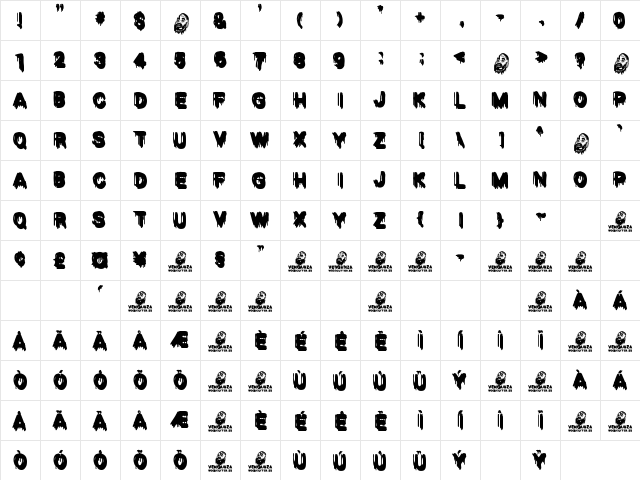
VENGANZA Regular
| Designer | Woodcutter Manero |
Design Context for VENGANZA Typeface
VENGANZA is a composed and adaptable typeface that performs quietly and consistently across a wide range of design contexts.